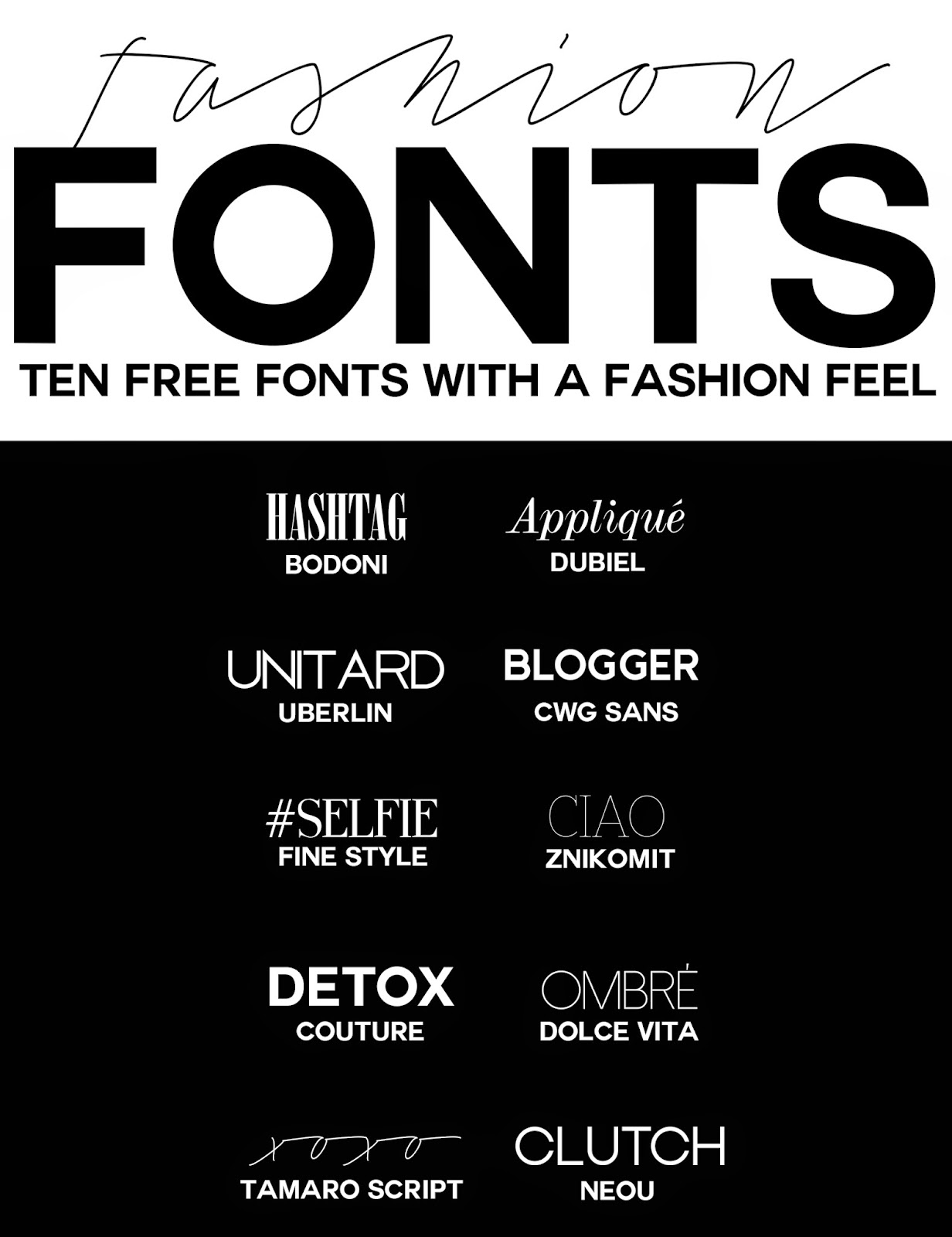
Free Modern Fonts Like Bodoni | Premium Fonts
Modern fonts like bodoni. Futuristic styled modern fonts like celestia are unusual and fun to use in graphic design projects that want to be a little disruptive. Celestia can give any design a fun modern and futuristic feel. Find fonts similar to bodoni font by paratype. Use the selector above to match other fonts in the family.
A brief history giambattista bodoni is known for creating one of the first modern serif typefaces. Try buy and download any typeface from our collection of fonts similar to bodoni. Wilma mankiller old light semicondensed font. Download the bodoni font by casady greene.
Bodoni followed the ideas of john baskerville as found in the printing type baskervilleincreased stroke contrast reflecting developing printing technology and a more vertical. Browse our collection of fonts similar to bodoni sans text regular. Bodoni is the name given to the serif typefaces first designed by giambattista bodoni 17401813 in the late eighteenth century and frequently revived since. Here you will find fonts that look like bodoni display fs.
The bodoni font has been downloaded 840364 times. Ratio modern canada type 5 styles from 2495 worry free. Walkway ultracondensed bold font. Bodonis typefaces are classified as didone or modern.
Bodoni the earlier versions of bodoni were considered transitional while the later versions fall into the modern category. Bebas neue book font. 4 styles from 1200. Browse our collection of fonts similar to bodoni.
This circular geometric font with filled in diagonal lines is great for music event posters or fashion spreads. Advances in printing technology during the late eighteenth century allowed bodoni to design letterforms with higher contrast between thick and thin strokes and crisp horizontal serifs. Wilma mankiller modern font. The typeface is known for its extreme contrast between thick and thin strokes which can make it more suitable for a display face rather than a text face.